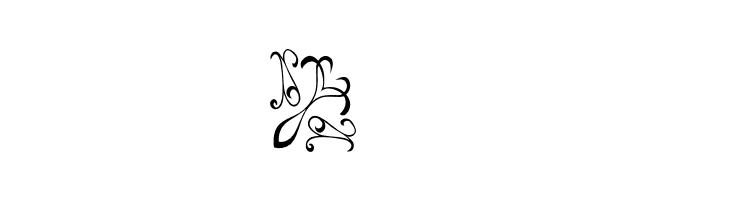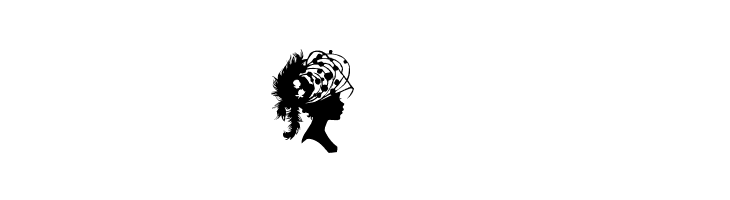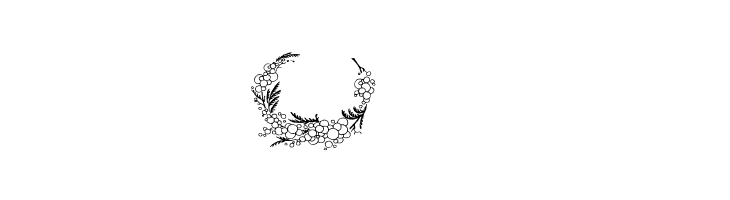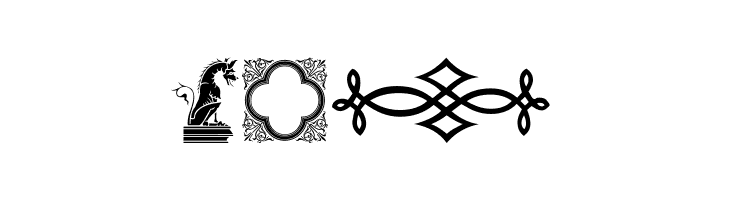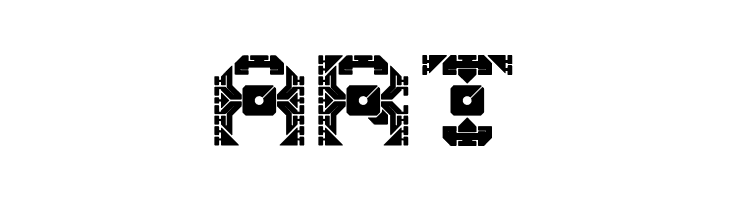
• Day Roman
A classic serif font with elegant strokes and balanced proportions.
• Day Roman - Expert
A classic serif font with elegant proportions and medium contrast.
• Dazalea
A dynamic, edgy font with sharp, angular strokes and a hand-drawn feel.
• Dazzle Ships
• DazzleShips-Regular
• DBL Celtic
A collection of intricate Celtic-inspired decorative elements.
• DBL Corners
An ornate and decorative font with intricate corner embellishments.
• DBL Faces from the past
Ornate silhouette font with vintage cameo-style profiles.
• DBL Flower Delight
A decorative font with intricate floral designs on each character.
• DBL MedievalDesign
Ornamental medieval-style decorative glyph set.